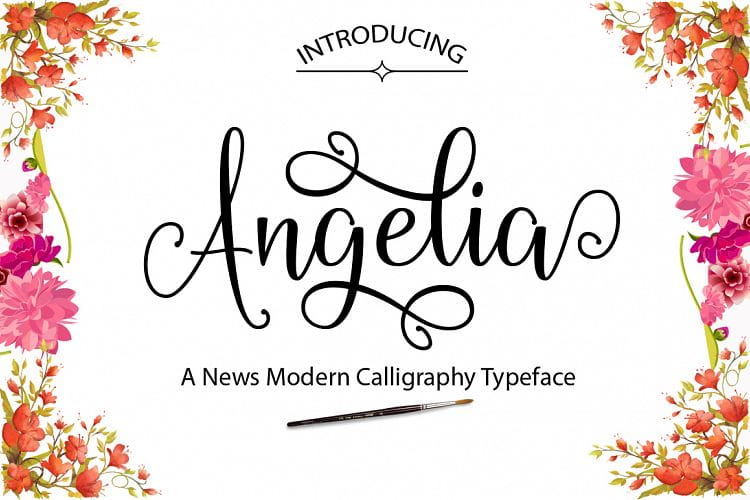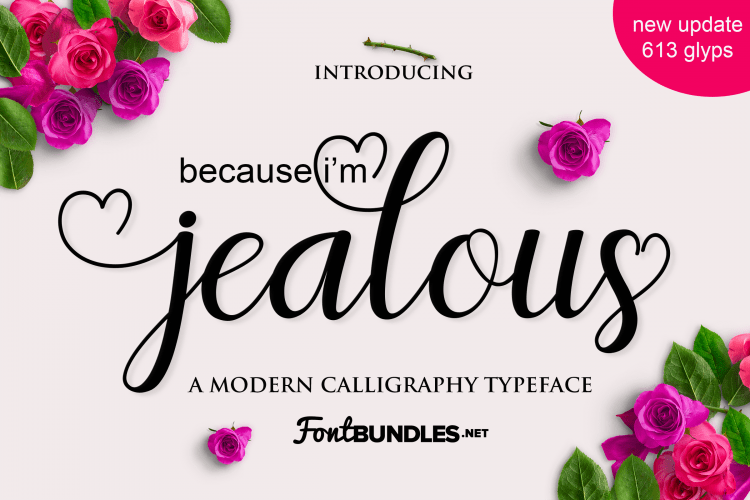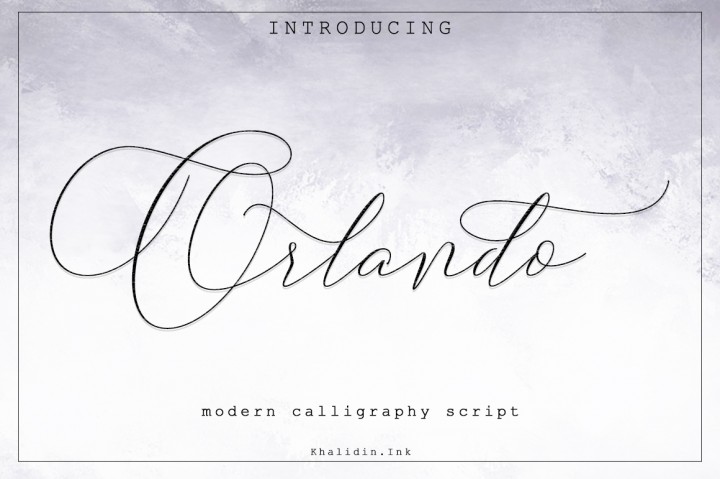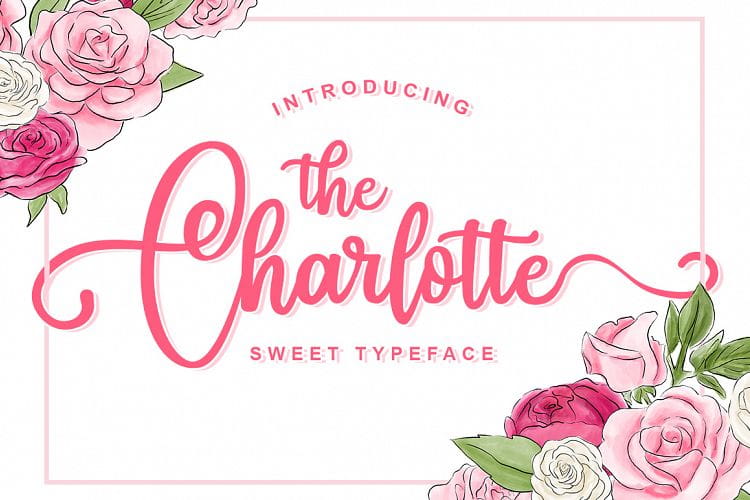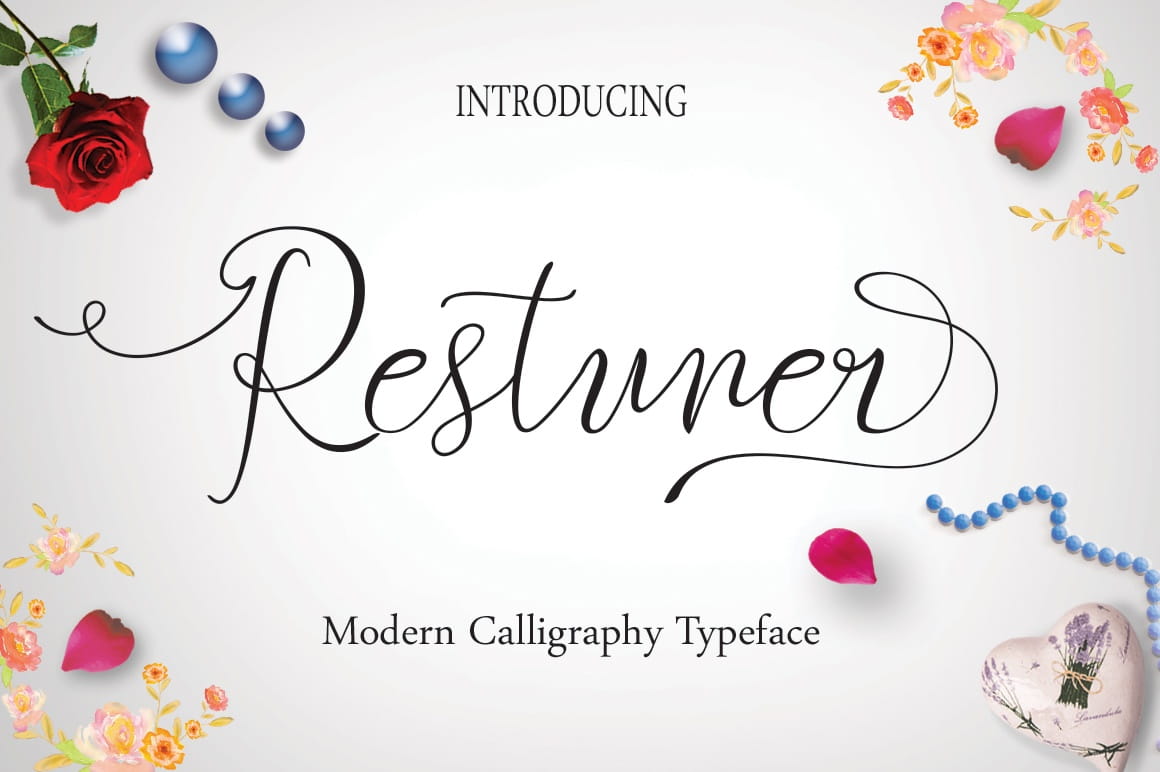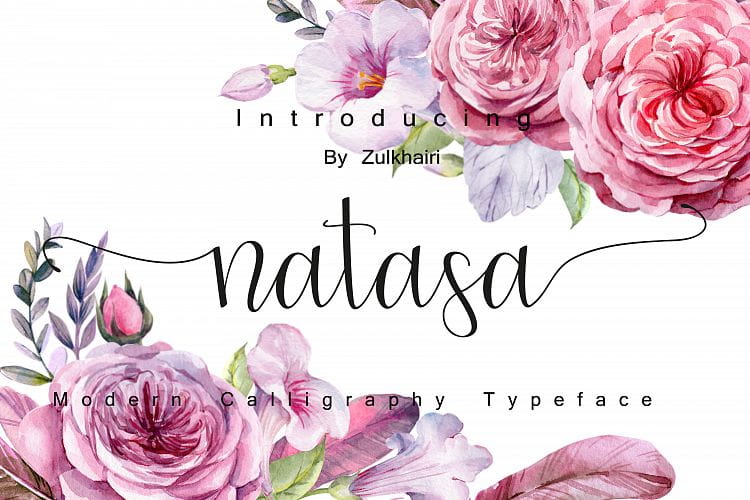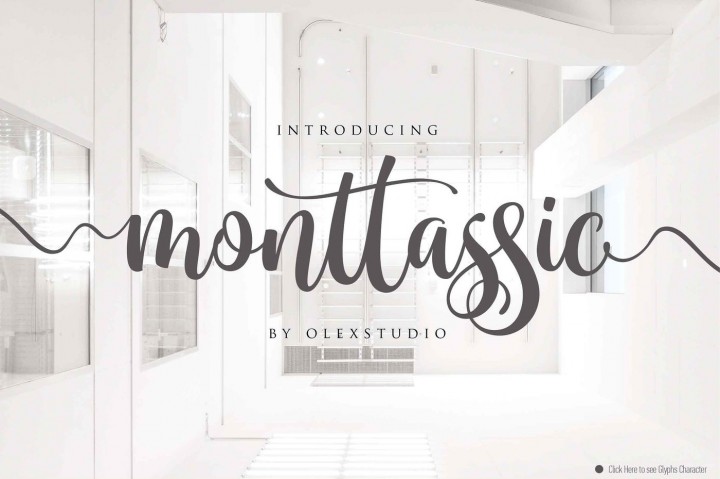
Script fonts or typefaces are based upon the varied and often fluid stroke created by handwriting. They are generally used for display or trade printing, rather than for extended body text in the Latin alphabet. Within this scope, script typeface are romantic, melodious, fancy, classic and modern. They have natural fluid flows that are attractive to the eyes and to the heart of the readers. Use script fonts for wedding, funerals, fashion showcases and any other events that needs a slick design. Here are 15 Brilliant New Script Fonts that you will enjoy using in your design projects.
The Charlotte
Charlotte is a fun and sweet typeface with curly extra swashes
Jealous Script
Jealous Script is a wonderful font inspired by love, lust and desire. Jealous includes over 600 glyphs all accessible via character map or font book.
Sleep Lesson
Natasa Script
Angelia
Angelina Script
Restuner script
Bambi Font
Modern and calm font , suitable for many project , quotes, logo , doodle, heading , title etc.
Mirantie font
Mirantie font is new solution for a project ,present with sort of classic decorative copperplate script with a modern twist. It is a display font meant for vintage logos, fashion labels, badges, food packaging designs, especially wine labels. Actually a lot of good wine was consumed while crafting this type 🙂 . Also I offer a decent amount of stylistic alternatives for many letters.
MONTTASSIC
MONTTASSIC is a beautiful Modern clean handlettering font Typeface, This Font will look gorgeous on all your designs, wedding invites, branding materials, logo’s, t-shirt, poster, business cards, quotes and all project design other.
Boutinela Script
Boutinela script fonts is modern calligraphy script font, every single letters has been carefully crafted to make your text looks beautiful. With modern script style this font will perfect for many different project, example: invitations, greeting cards, posters, name card, quotes, blog header, branding, logo, fashion, apparel, letter, stationery and more!
Elegantly&Modest
Elegantly&Modest a work that is purely a result of handwriting, has a natural characteristic. this is perfect for invitations, signatures, blogs, social media, business cards, product brands.
This elegantly form script fonts has two sets of letters, namely Stylistic standard and Stylistic Alternate. and includes uppercase and lowercase letters, numbers and punctuation marks, also equipped with 42 ligature.
Orlando Font Script
NEW FRESH ! Orlando Font Script. It’s an modern typeface. Orlando Font Script, including swashes, ligatures,Alternate and International support for most Western Languages is included. Orlando Font Script come with 550 glyphs. script fonts
Vamellia Script fonts
Vamellia script is a hand brushed font created with a brush and ink, bold and irregular baseline. Contains a complete set of lowercase, uppercase, alternates, ligatures, punctuation, numbers, and multilingual support working in harmony with Vamellia script to create typography awesome creations. Get some inspiration from the preview above. Contains a complete set of lowercase, uppercase, ligatures, punctuation, numbers, and multilingual support.
Mirabelle Script fonts
Mirabelle Font – handwritten typeface for your projects! Elegant script! ♥ This hand drawn font is perfect for cards, prints, logos, wedding invitations, arrange illustration and decoration.